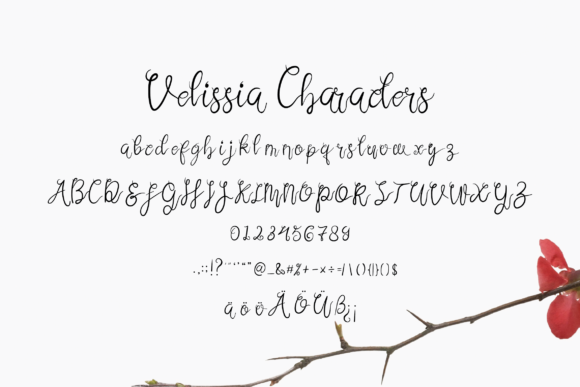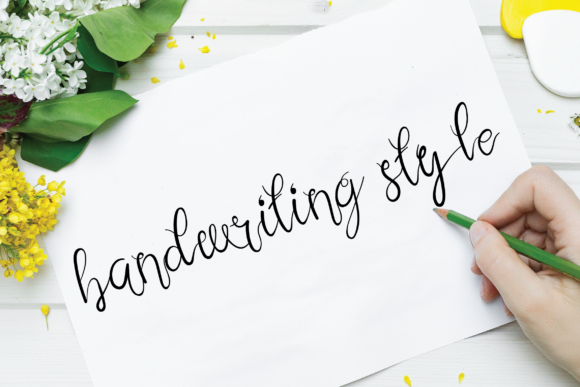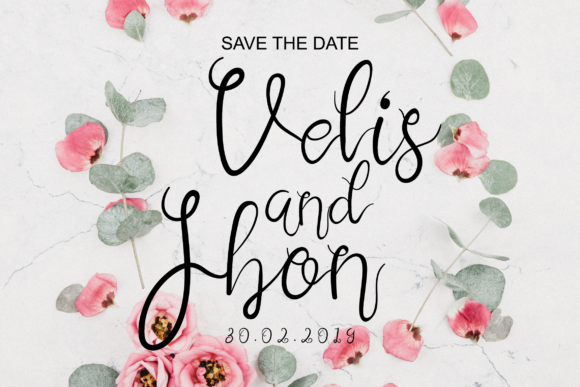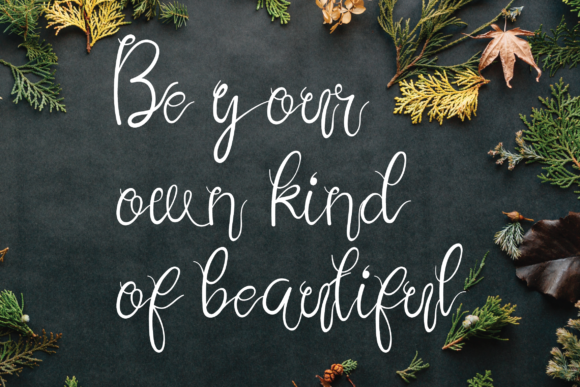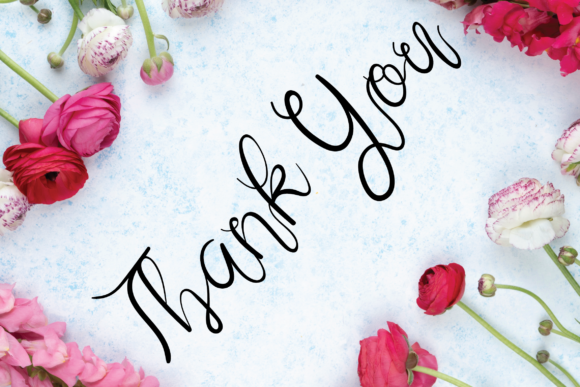
Velissia Font
About Velissia Font
The Velissia is an elegant script font. It includes handmade flavors which bring a beautiful and stylish look to your watermarks, social media posts, advertisements, logos, branding, and every other design which needs a handwritten touch.